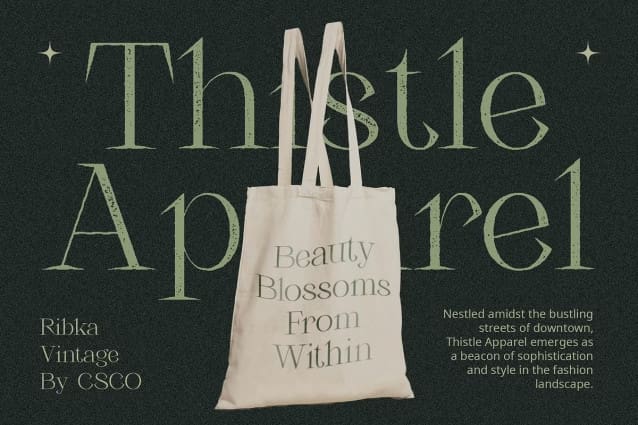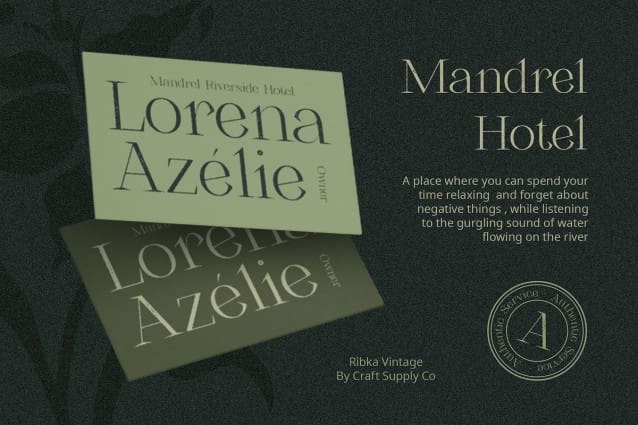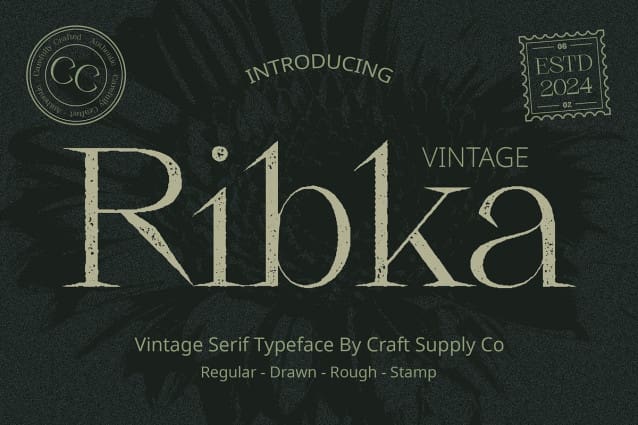
Ribka Vintage Font
Ribka Vintage Font, boasts sharp serif shapes that evoke a sense of classic elegance and sophistication. Its pointed serifs add a touch of refinement to any design.
Vintage Rough Aesthetics With vintage rough effects, This font exudes authenticity and character. The rough texture imbues each letter with a unique charm, perfect for capturing attention in any display project.
Eye-Catching Display This font commands attention with its striking appearance. The combination of sharp serifs and vintage roughness ensures that every character stands out, making it an eye-catching choice for display purposes.
Versatile Design Applications From posters to packaging, This font offers versatility in design applications. Its timeless appeal and vintage-inspired aesthetics make it suitable for various projects, adding a touch of retro charm to any design.
In Conclusion: Ribka Vintage – A Blend of Elegance and Authenticity This font blends the elegance of sharp serifs with the authenticity of vintage roughness, resulting in a font that captivates with its timeless charm. Whether used for branding or signage, Ribka Vintage adds a touch of vintage allure to any display project.